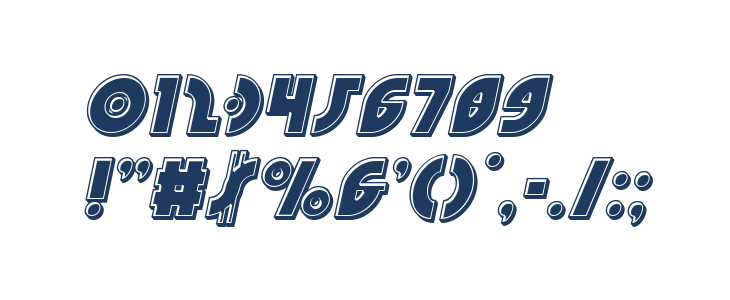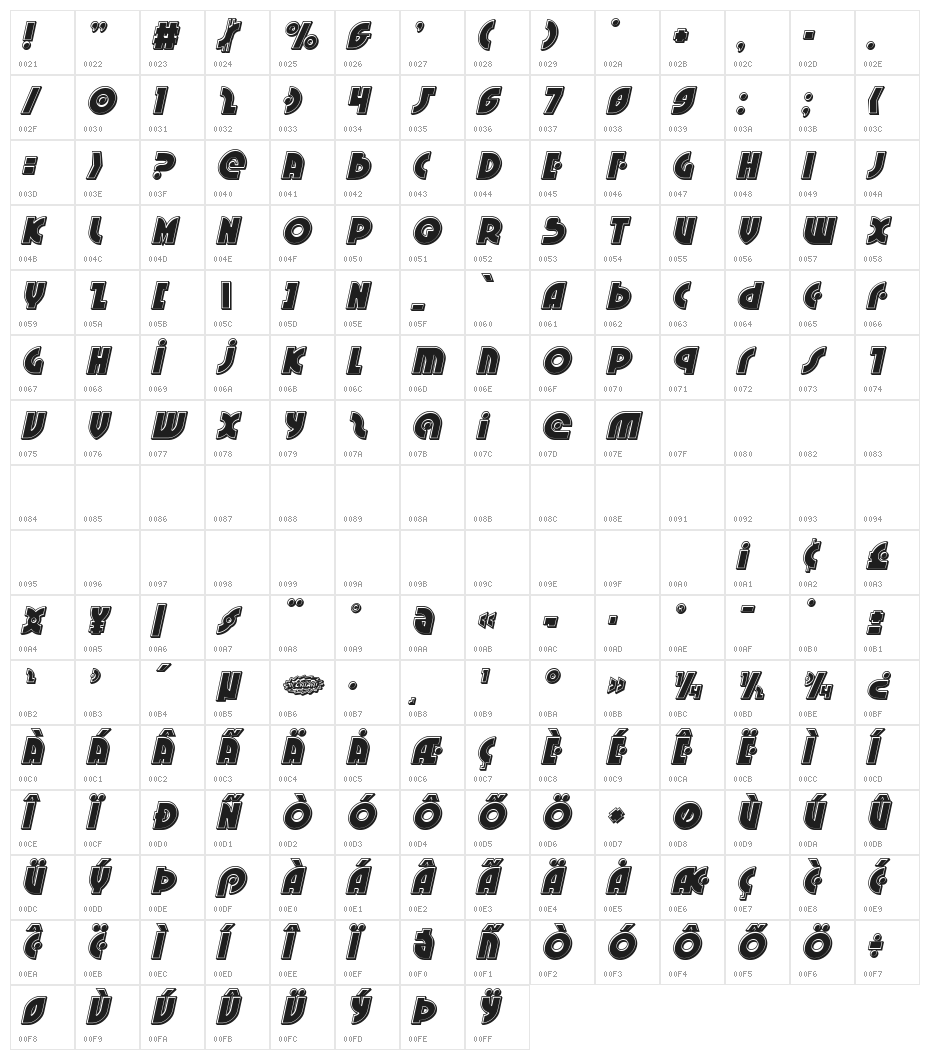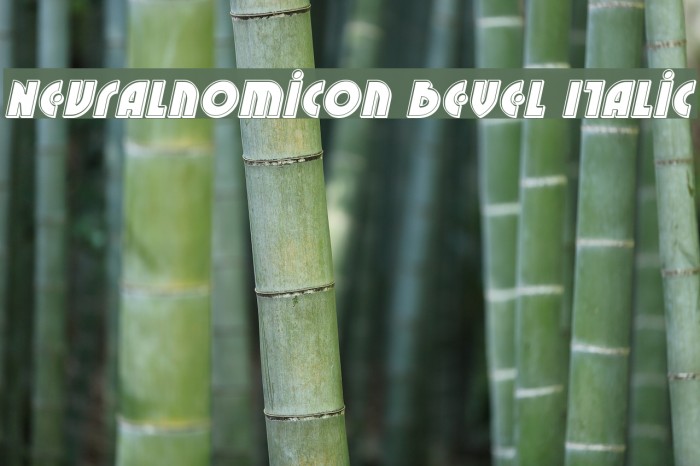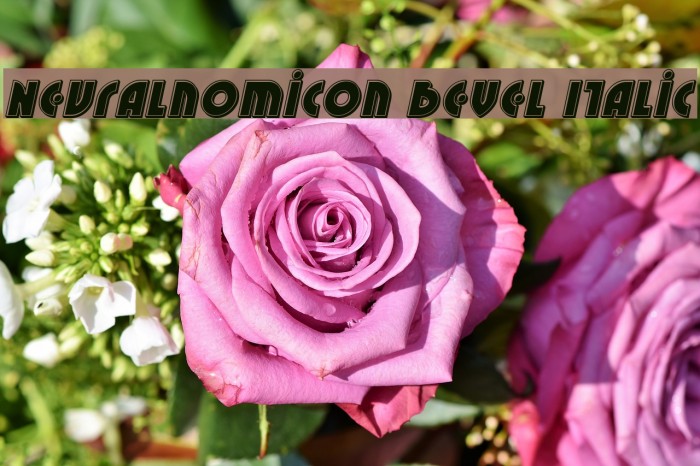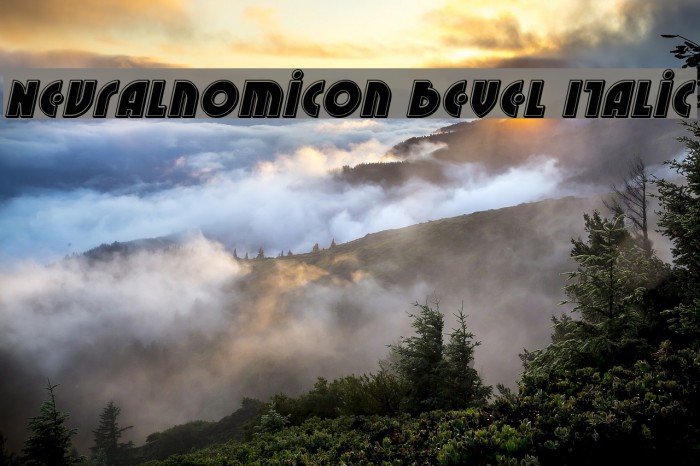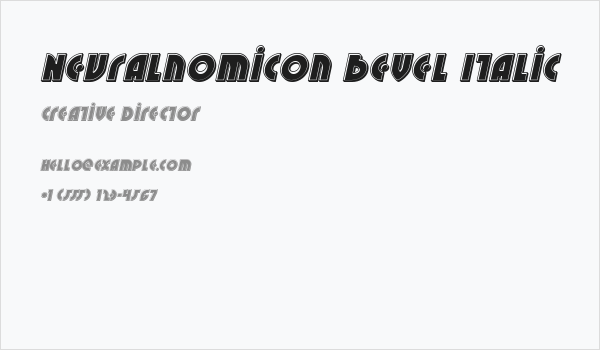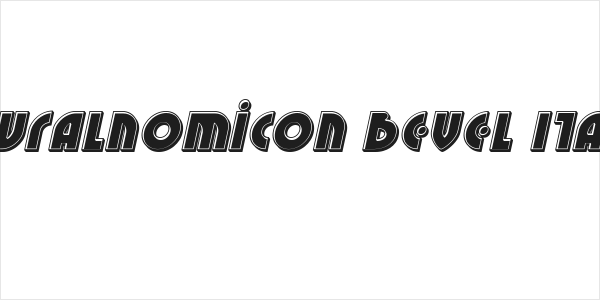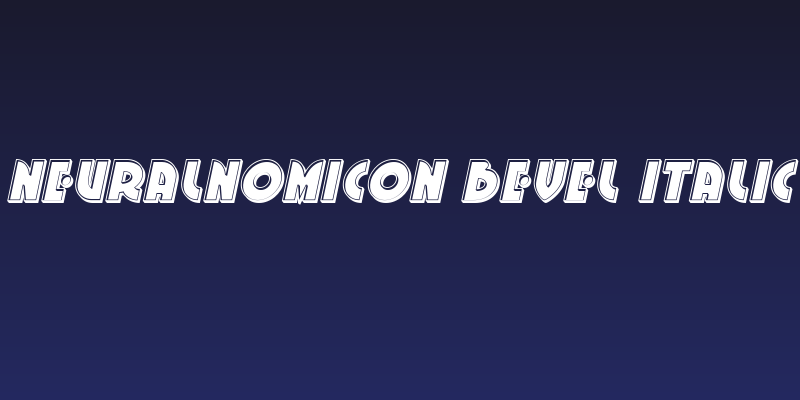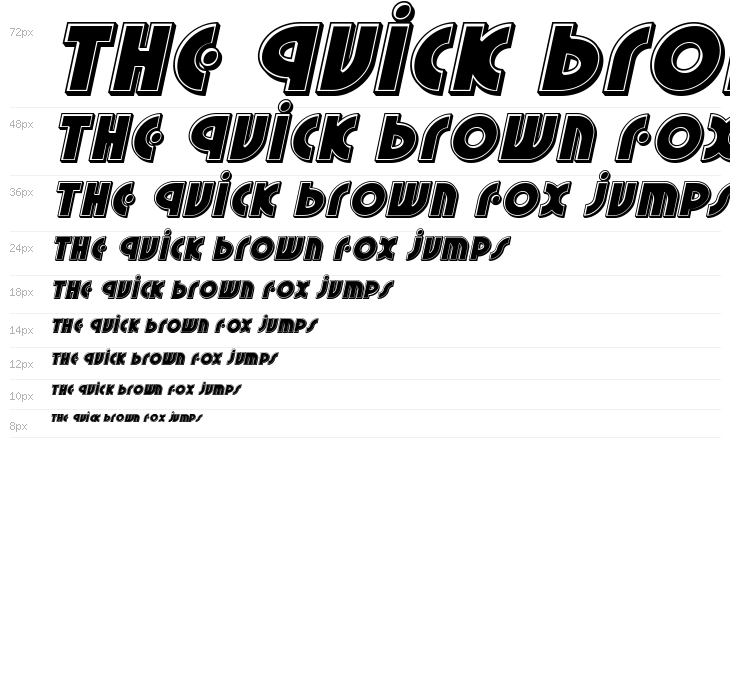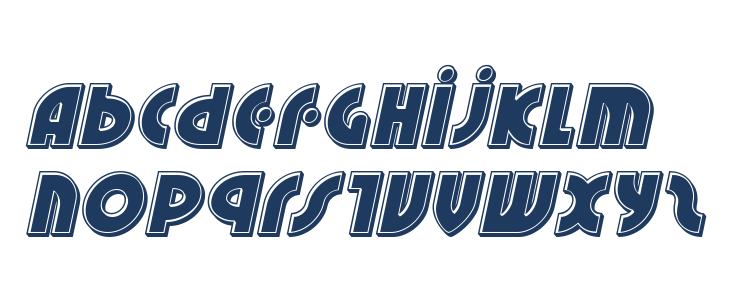
Neuralnomicon Bevel Italic Font
Neuralnomicon Bevel Italic Description
This font features a bold and striking design with a beveled, three-dimensional effect that gives it a unique and eye-catching appearance. The characters are italicized, adding a dynamic and forward-leaning style. The font is characterized by thick strokes and a high contrast between the main body and the beveled edges, which are highlighted by a shadow effect. The overall look is modern and futuristic, making it suitable for projects that require a strong visual impact. The uppercase and lowercase letters maintain a consistent style, while the numerals and special characters complement the overall design.
Proposed ProjectsIdeal for headlines, posters, logos, and any design requiring a bold, futuristic aesthetic.